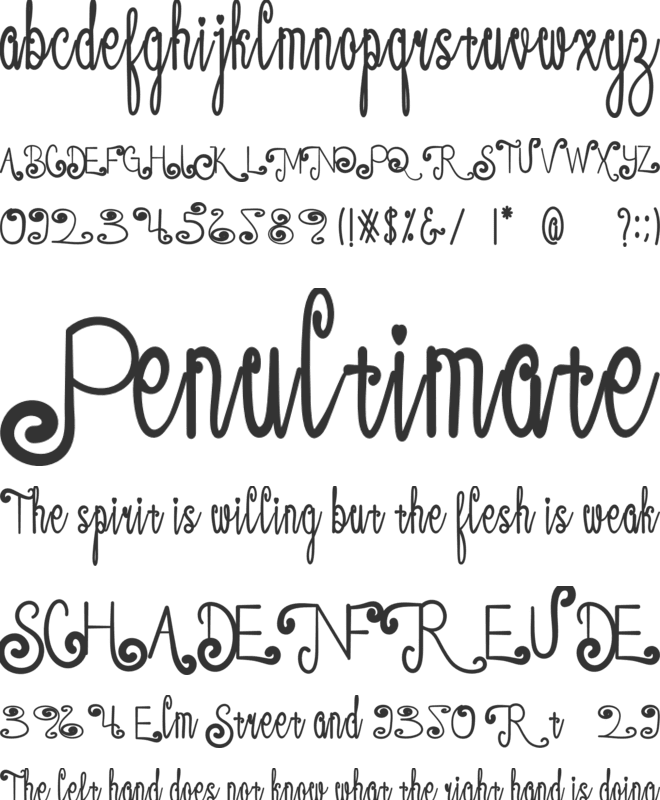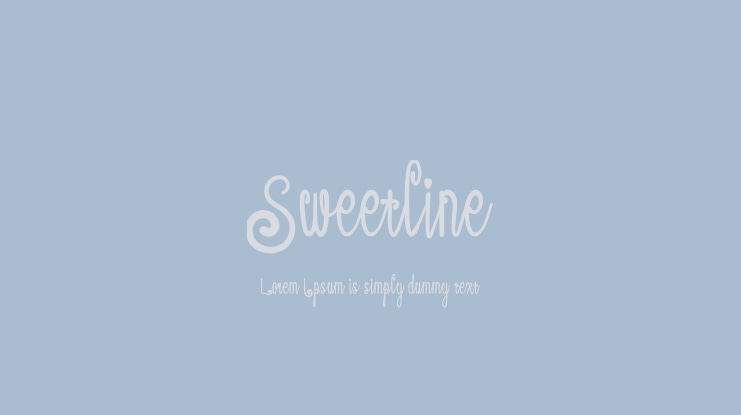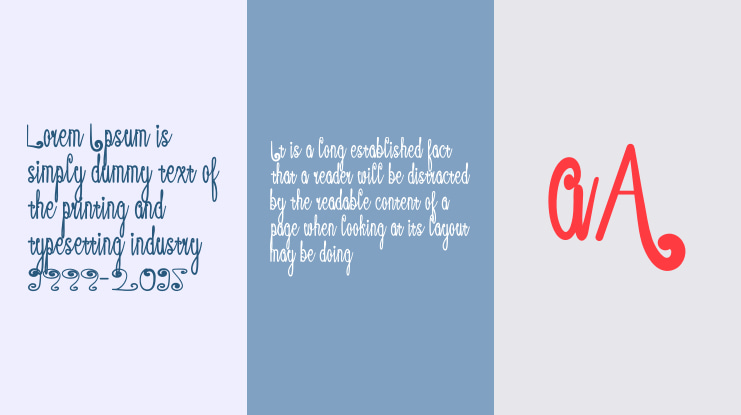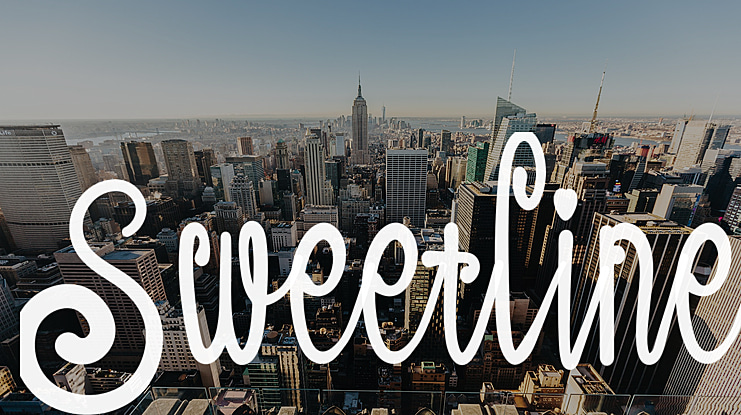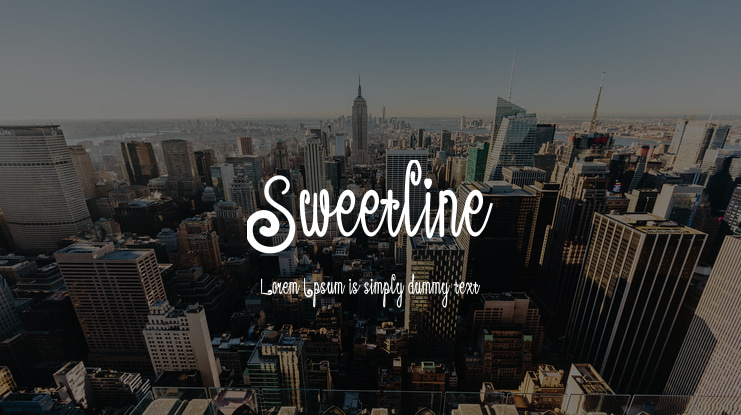
Sweetline Font
Sweetline is a free-flowing script font created for packaging products, invitation cards, flyers, mockups, event posters, and anything else that requires high-quality vibes. It has a beautiful and balanced character, that fits well with the large design pool. read : https://s.id/-18ptr